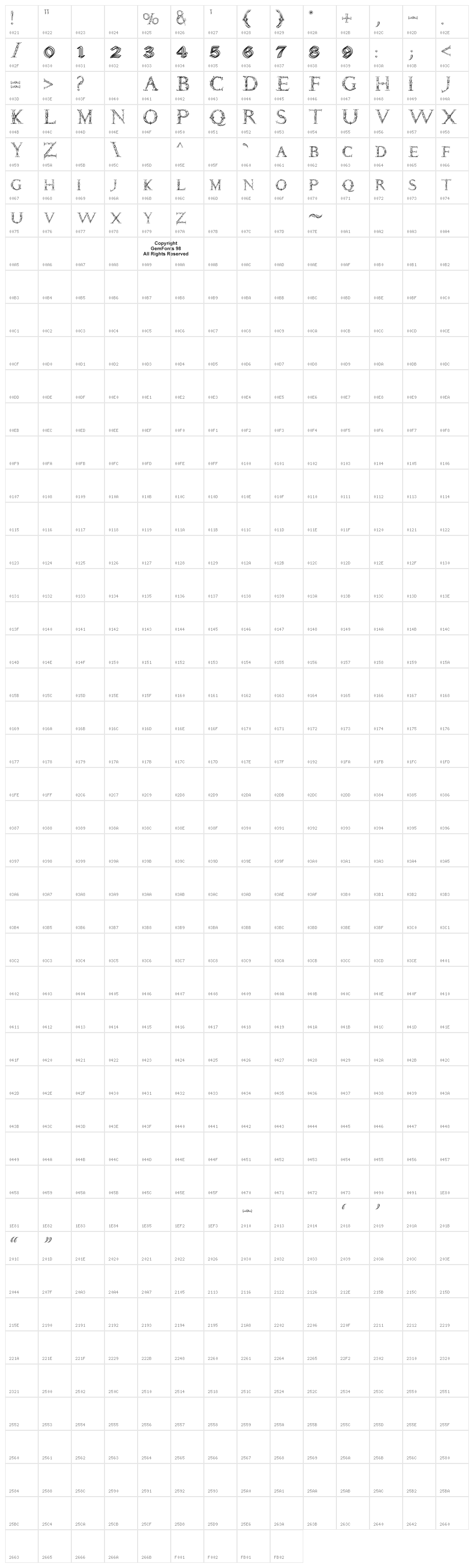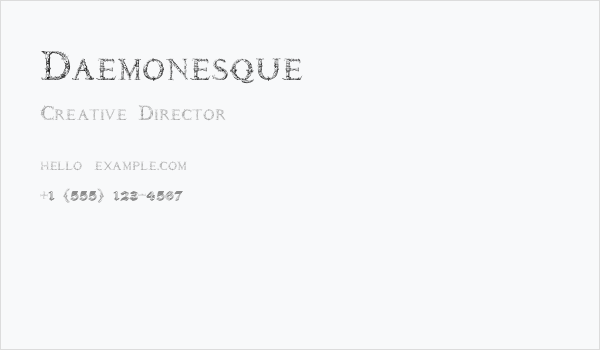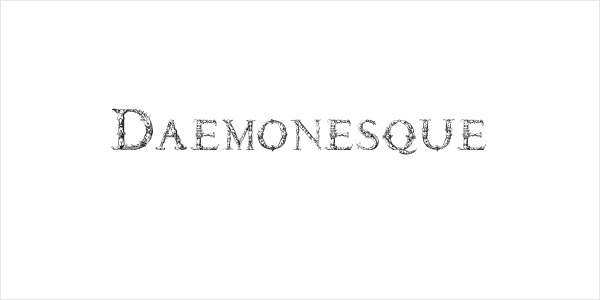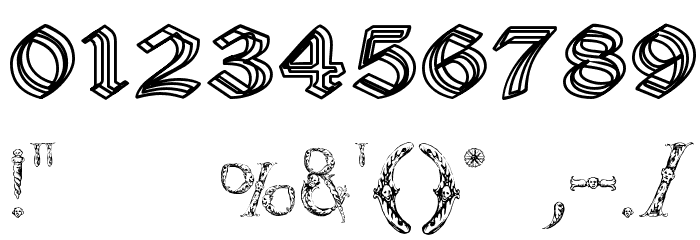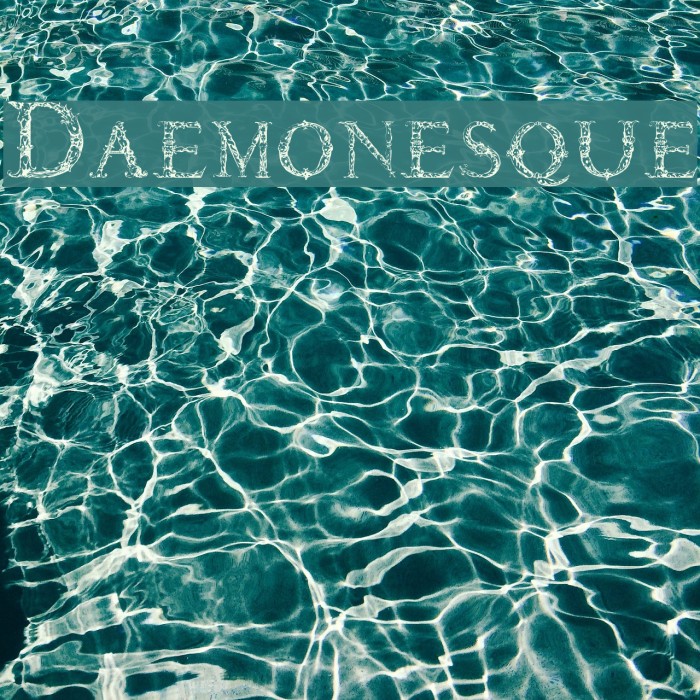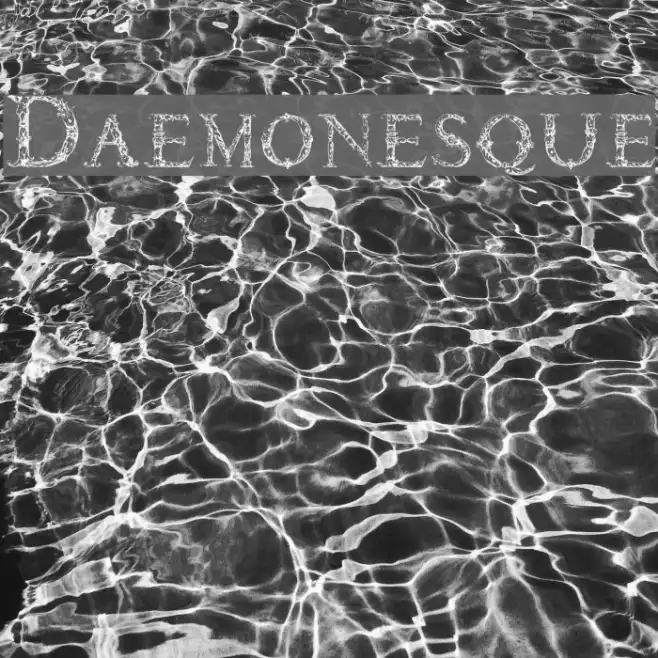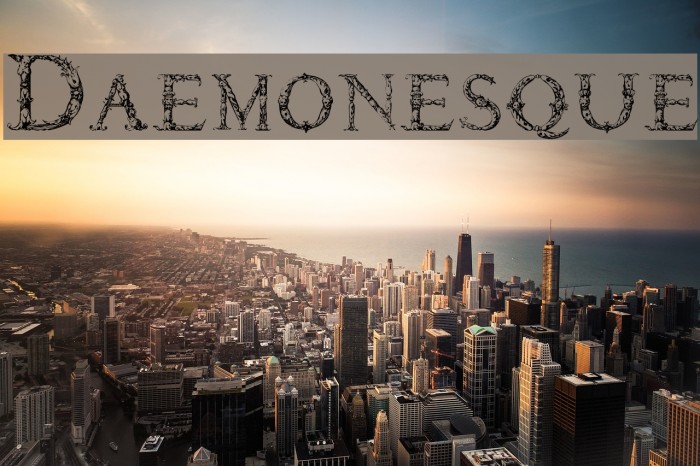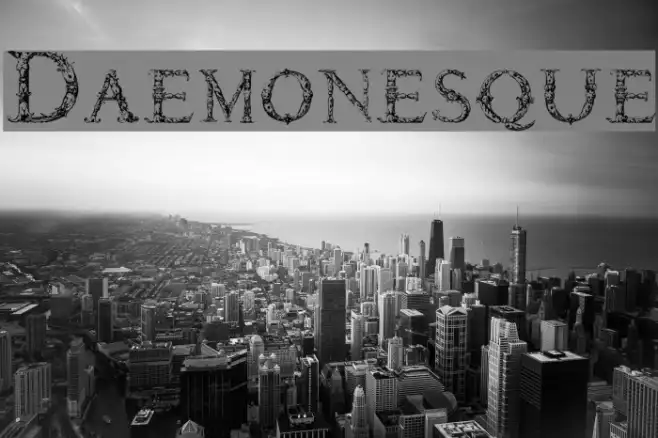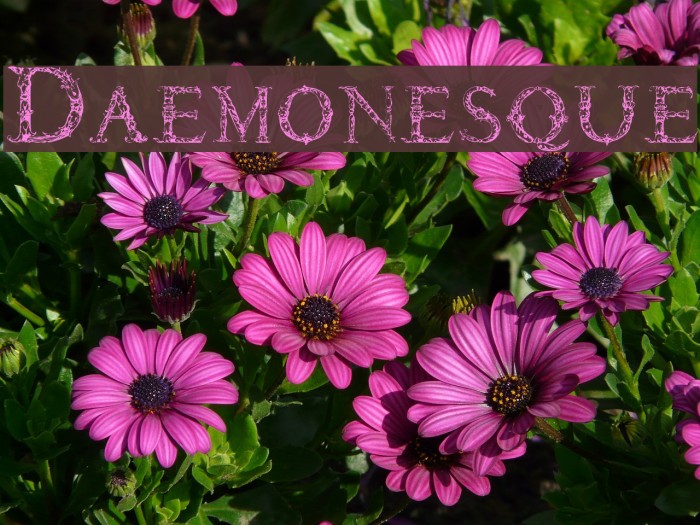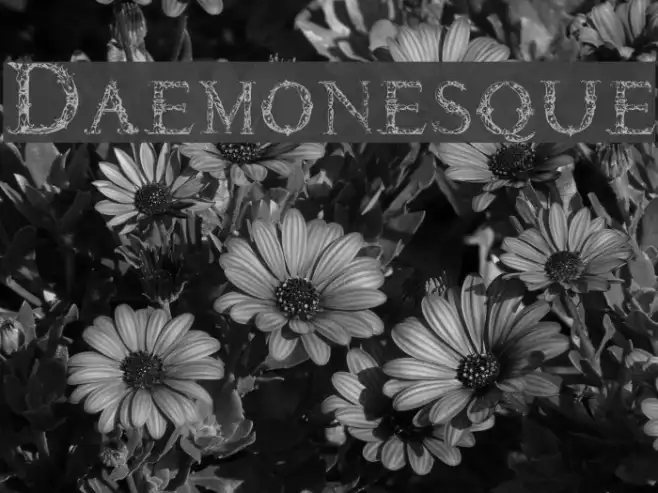
Daemonesque Font
Daemonesque Description
This font features an intricate and decorative design, with each character adorned with detailed, swirling embellishments that evoke a sense of mystery and elegance. The uppercase letters are bold and commanding, while the lowercase letters maintain a consistent style, offering a cohesive look. Numbers are uniquely styled with a three-dimensional effect, adding depth and interest. Special characters are equally ornate, fitting seamlessly into the overall aesthetic. The font's elaborate design makes it ideal for projects that require a touch of sophistication and drama.
| Use Case | Logos, Headlines, Posters |
| Proposed Projects | Ideal for gothic-themed designs, book covers, posters, and branding that requires a dramatic and sophisticated touch. |